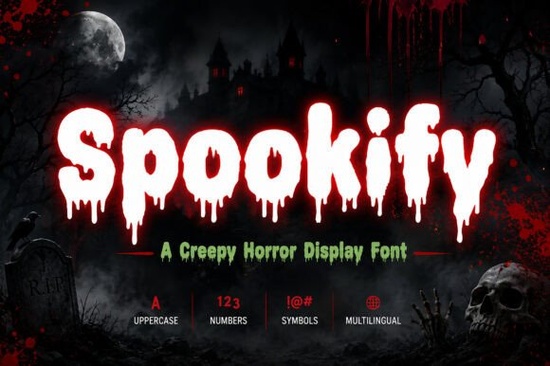
If you’re designing something for Halloween or any project where you want a genuinely unsettling, hand-drawn horror vibe Spookify Font is one of the few display fonts that lands just right. It’s not cartoonish or overly playful, and it’s not so abstract that it sacrifices readability. Instead, Spookify balances eerie dripping letterforms with bold, intentional shapes making it practical and atmospheric. Whether you're a small business owner printing haunted house flyers, a POD seller updating your October t-shirt collection, or a self-published author designing a thriller book cover, this font helps communicate mood without needing extra graphics.
What makes Spookify different from other horror fonts?
Most “scary” fonts lean too far in one direction: either they’re so jagged and distorted that they’re hard to read at smaller sizes, or they’re generic gothic styles that feel more medieval than menacing. Spookify avoids both pitfalls. Its letters look like they’ve been drawn by hand then left to drip slowly in damp ink. That subtle imperfection adds realism, while the generous spacing and strong contrast keep text legible even on YouTube thumbnails or social media banners.
The set includes uppercase letters, numbers, and common punctuation so you can build full headlines, dates, and short taglines without switching fonts. You won’t need to layer effects or fake drips in Photoshop; the dripping is built-in, consistent, and carefully spaced to avoid visual clutter.
Where does Spookify work best?
Because it’s a display font not meant for body text it shines where impact matters most:
- Halloween party invitations especially digital invites or printed cards where you want guests to feel the theme before they even open the details
- Horror movie posters pairing Spookify with a moody photo background gives instant genre recognition
- Haunted house or escape room flyers local businesses use it to stand out on community bulletin boards or Instagram Stories
- Book covers for paranormal romance or dark fantasy it reads as serious horror, not camp
- T-shirts and stickers its thick strokes hold up well in screen printing and vinyl cutting
It’s also popular among gamers designing Twitch overlays or indie developers naming spooky game titles like “The Hollow Asylum” or “Blackroot Grove.” If your audience responds to texture and tone over polish, Spookify fits naturally into that aesthetic.
How does it compare to other Creative Fabrica display fonts?
Like Robobo Font, Spookify uses strong silhouettes but Robobo leans futuristic and mechanical, while Spookify is organic and unsettling. Unibelle Font offers elegant contrast and delicate serifs, making it better for vintage branding than horror. Candyhorn Font brings playful energy (great for candy-themed logos), but lacks the weight and gravity Spookify delivers. And while Amazing Newbie Font is versatile and friendly, it doesn’t carry the same deliberate unease.
In short: if your project needs to whisper “something’s wrong here,” Spookify answers that call without shouting.
Realistic tips for using Spookify well
Start simple. Use it for headlines only never body copy. Pair it with a clean sans-serif (like Montserrat or Inter) for supporting text. Avoid stacking multiple dripping fonts together; the effect loses impact. For print projects, test how the drips render at your printer’s resolution some very fine drips may soften slightly on lower-DPI output.
If you’re selling merchandise, remember that readability still matters to buyers. A shirt that says “BOO” in Spookify works instantly. But “THE ANCIENT CURSE OF THE FORGOTTEN WELL” might be too much even with great kerning. Shorter is stronger here.
You can also tweak color thoughtfully: deep blood red, bruised purple, or matte black on off-white paper all reinforce the mood. Neon green or electric blue can work for retro-horror or synthwave spins but tread carefully. The font already carries strong personality; don’t compete with it.
For reference, you can see how designers are currently using Spookify on Spookify font in real projects from Canva templates to Procreate mockups.
Check your license. Spookify includes commercial use rights, so you can use it in client work, POD stores, and physical products but always review the specific terms on the product page. Also note: it’s an uppercase-only font, so plan your messaging accordingly. If you need lowercase letters or extended language support (like accented characters), you’ll need to pair it with another typeface.
Quick checklist before using Spookify:
- ✅ Using it only for headlines, logos, or short phrases
- ✅ Pairing it with a neutral, readable secondary font
- ✅ Testing size and spacing on your final output (screen or print)
- ✅ Keeping color choices moody but legible especially for accessibility